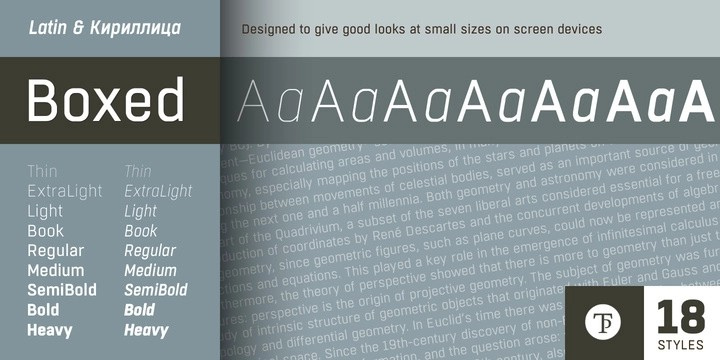
Boxed Font
Boxed Font is perfectly suited for industrial branding, construction company logos, shipping and logistics marketing, warehouse signage, manufacturing documentation, technical product packaging, storage facility branding, organizational systems design, and structured corporate communications.
What makes Boxed Font so exciting is its bold structural integrity and commanding geometric presence that instantly conveys strength, organization, and systematic efficiency through every precisely constructed letterform. This powerful typeface embodies the principles of industrial design with its clean, boxed character shapes and strong angular construction that evoke images of containers, frameworks, and solid infrastructure. The font's distinctive squared proportions and authoritative weight create an atmosphere of reliability and structural soundness that resonates with audiences who value order, efficiency, and dependable systems. Boxed Font stands out through its ability to convey strength, organization, and industrial authority, making it perfect for projects that need to establish credibility in manufacturing and logistics markets while communicating with audiences who appreciate systematic efficiency and structural reliability.
The Boxed Font family includes Light, Regular, Medium, Bold, and Black weights, each maintaining the font's distinctive boxed character while providing design flexibility for various industrial applications. The family also features condensed variations and structural alternates that enhance the font's systematic appeal and provide comprehensive solutions for organized design projects requiring strong visual presence.
When you choose Boxed Font Free Download, you're selecting a typeface that brings authentic industrial strength and systematic authority to your creative projects. This font excels in creating designs that need to convey organization, durability, and professional efficiency. Its bold geometric appearance makes it particularly effective for manufacturing companies, logistics firms, and industrial projects that want to establish structural credibility while communicating systematic reliability.
The technical excellence of Boxed Font includes a comprehensive character set with uppercase and lowercase letters, numerals, punctuation marks, and industrial symbols that maintain the font's structural character. The font has been meticulously engineered to ensure perfect alignment and geometric consistency across both digital and print applications while preserving the bold details that give it its distinctive industrial character and systematic appeal.
Whether you're designing industrial branding, creating manufacturing marketing materials, developing logistics communications, or crafting designs that require structural strength and systematic organization, Boxed Font delivers the perfect combination of industrial authority and contemporary functionality that makes your projects structurally compelling and professionally reliable for audiences seeking dependable industrial solutions and systematic efficiency.